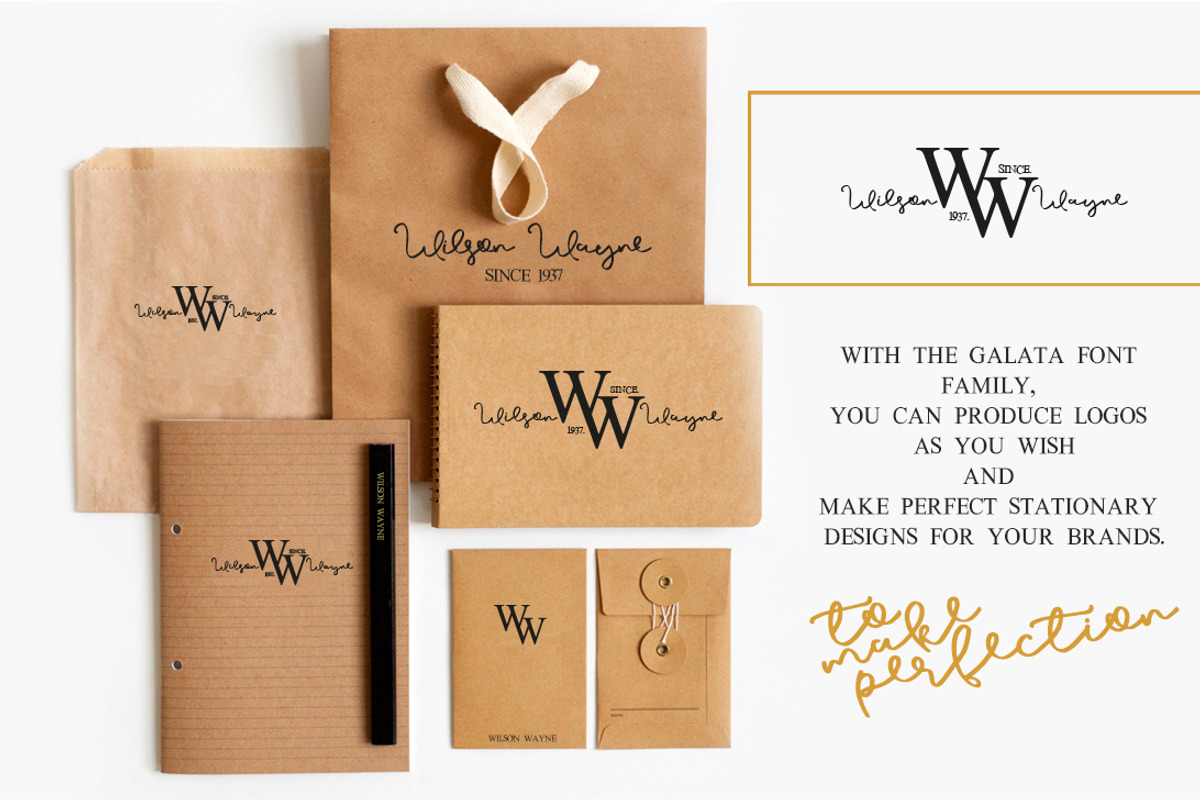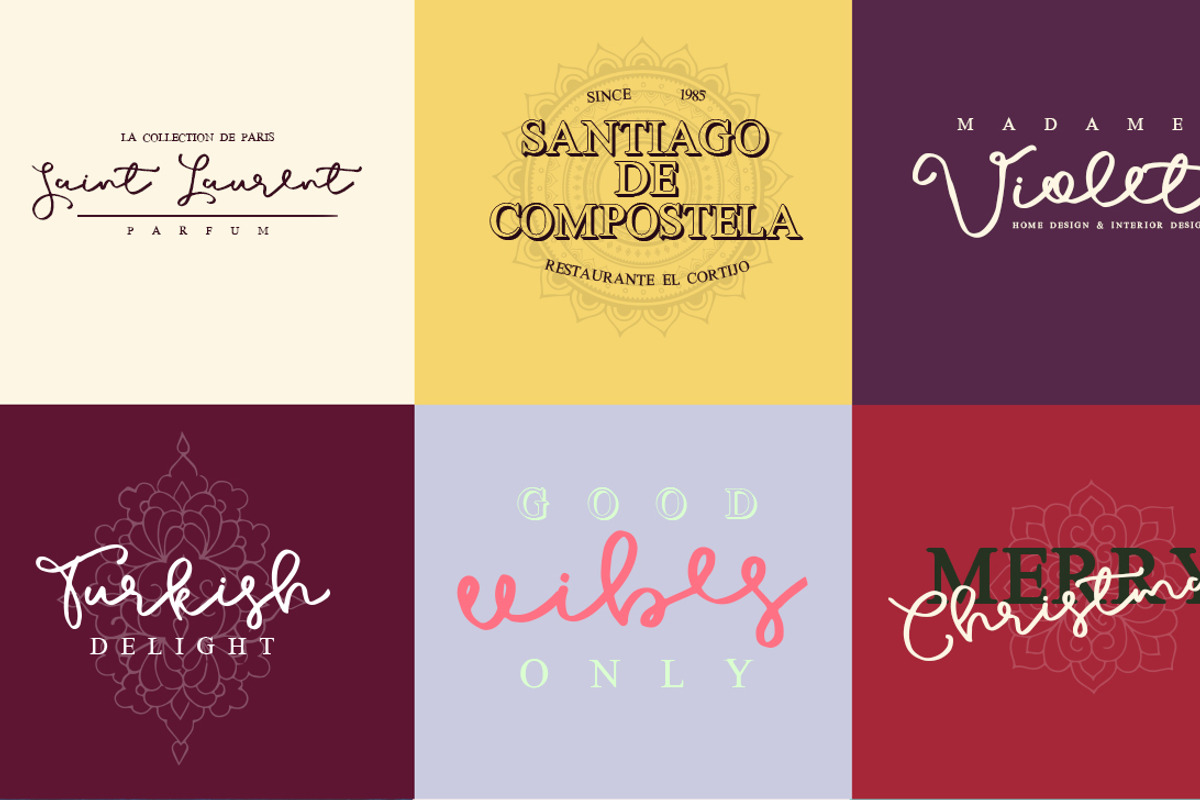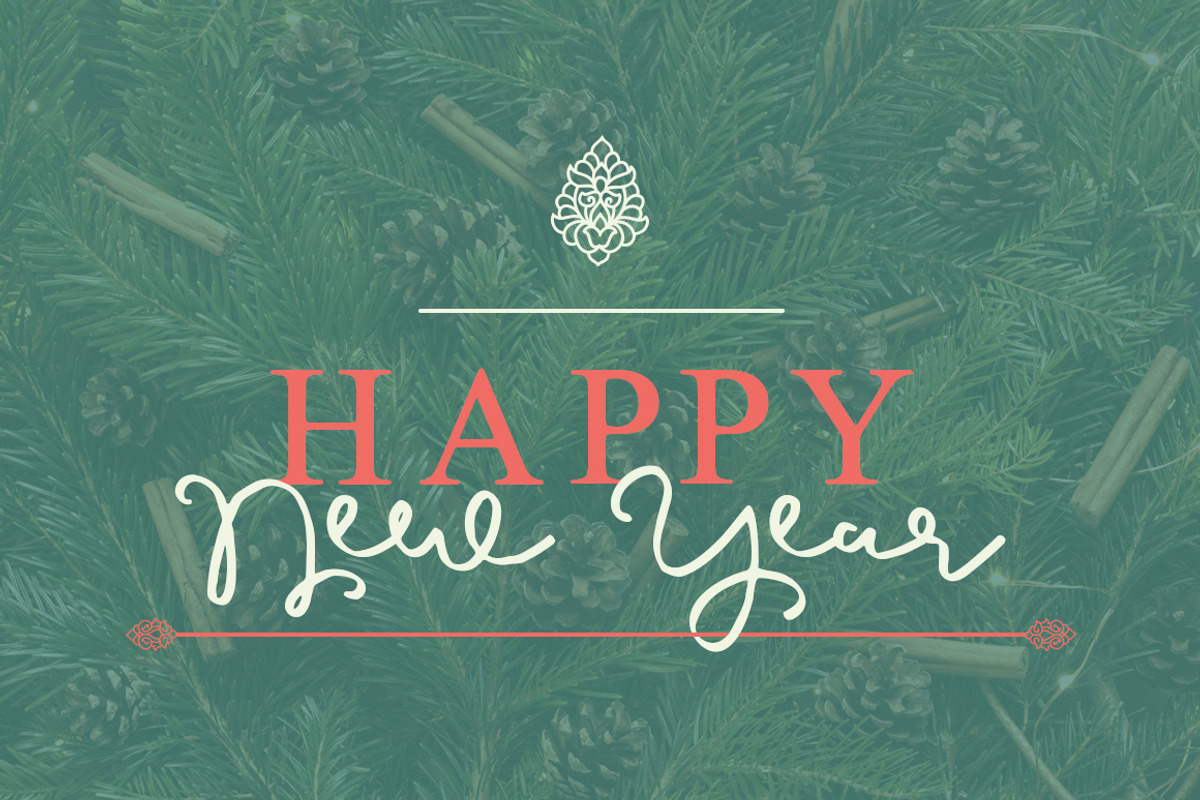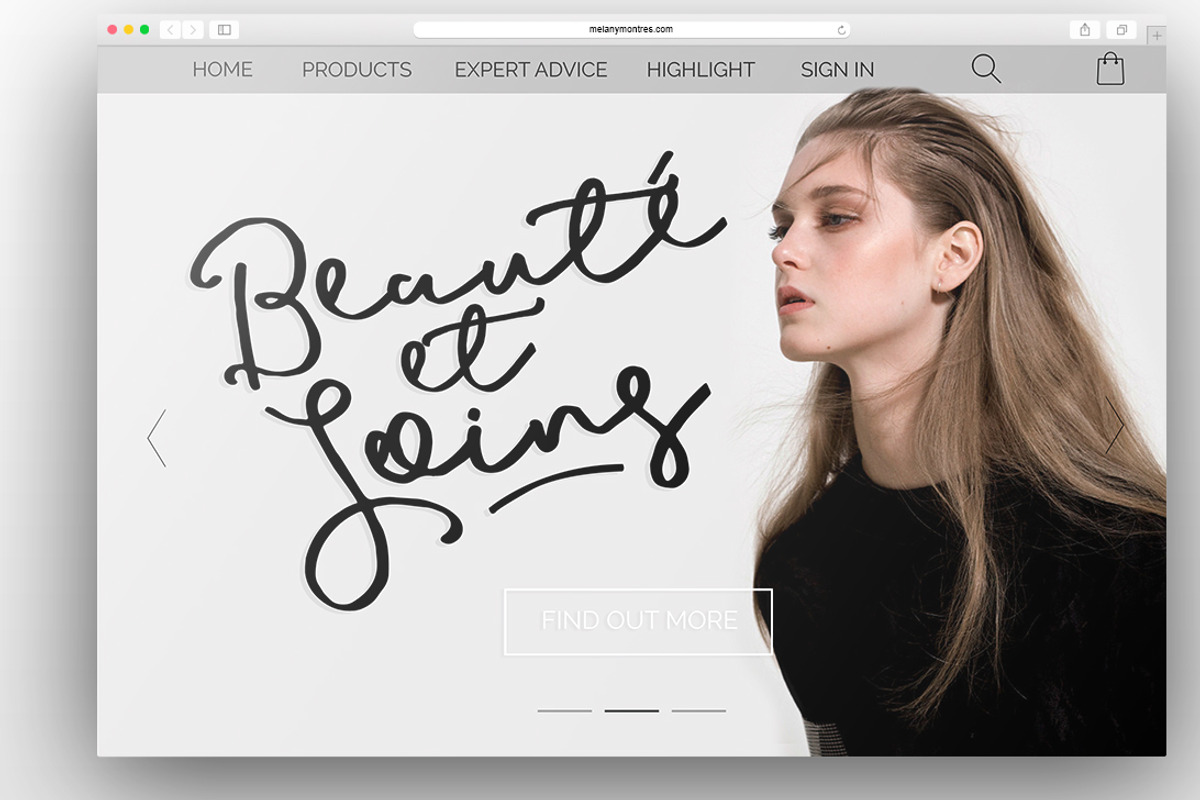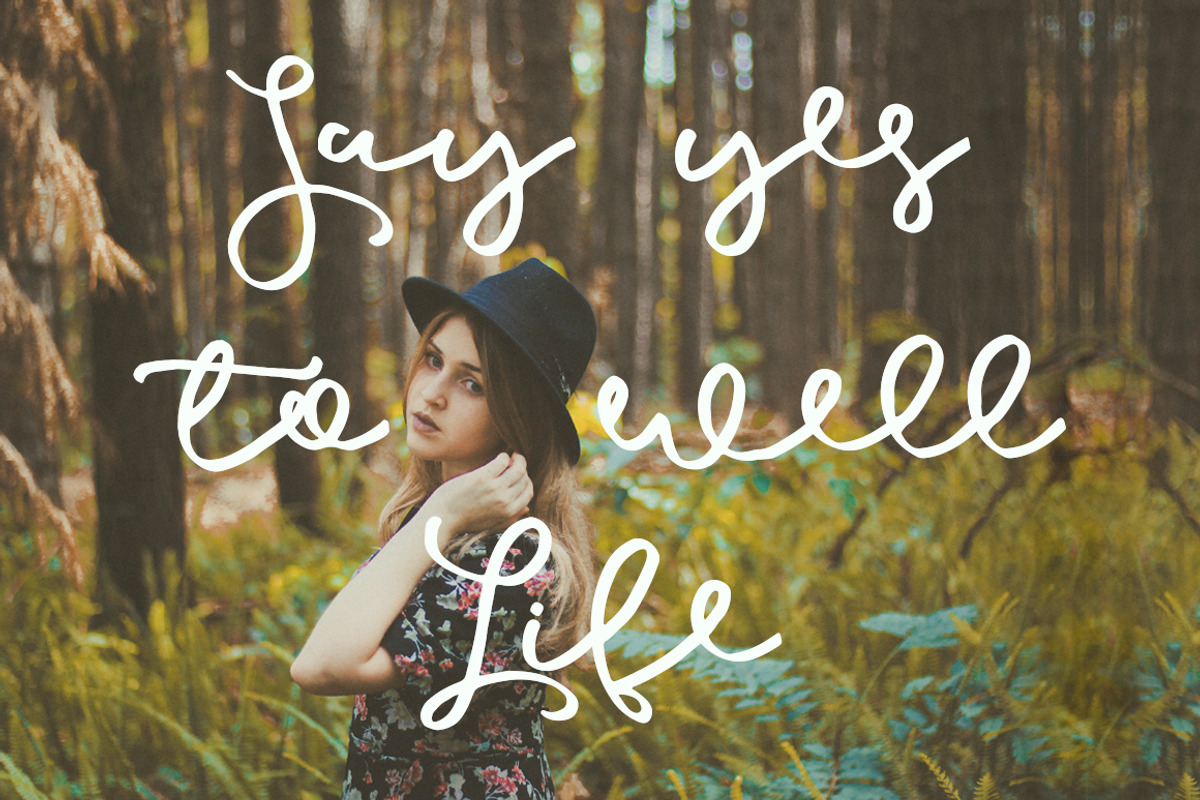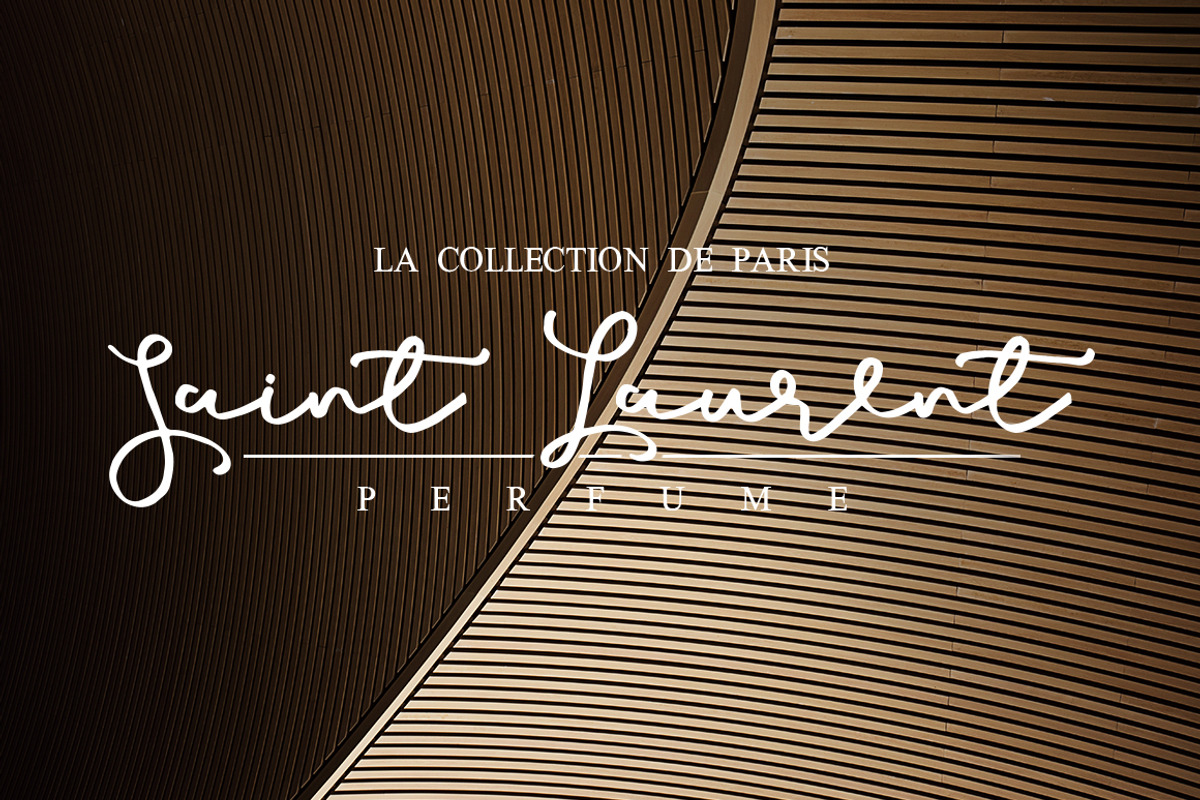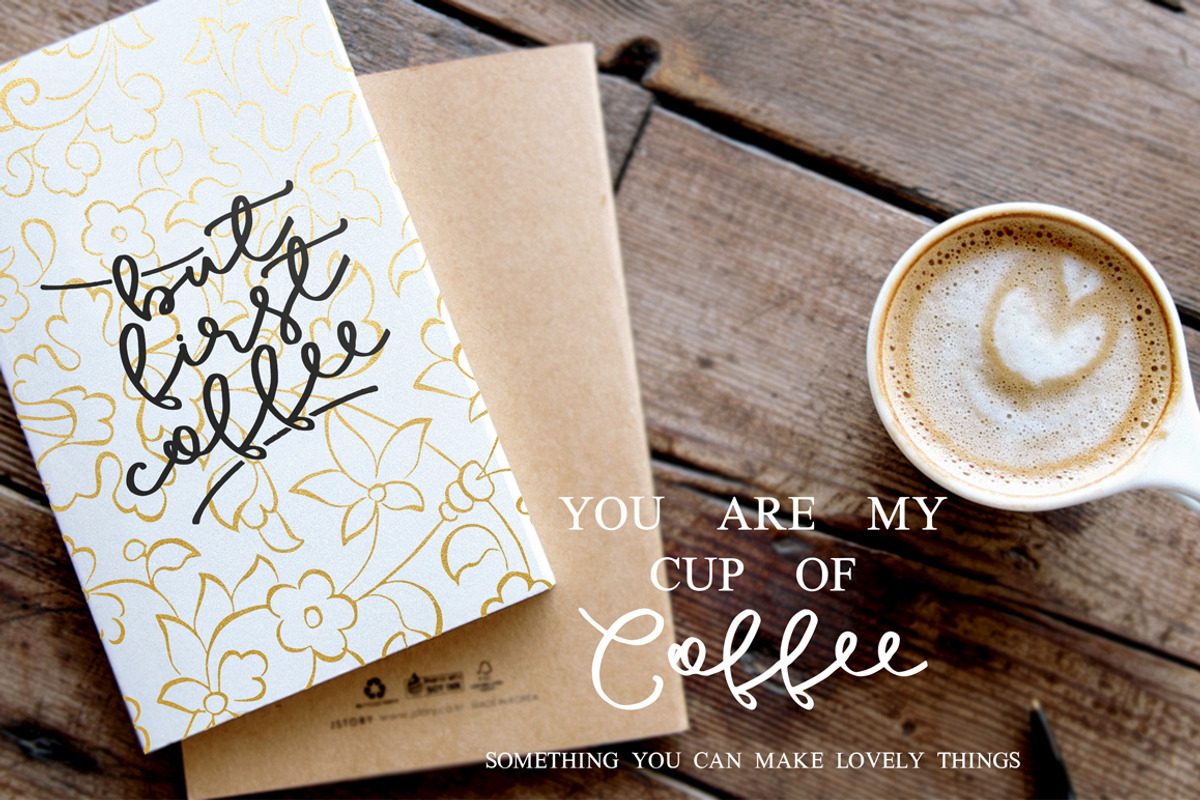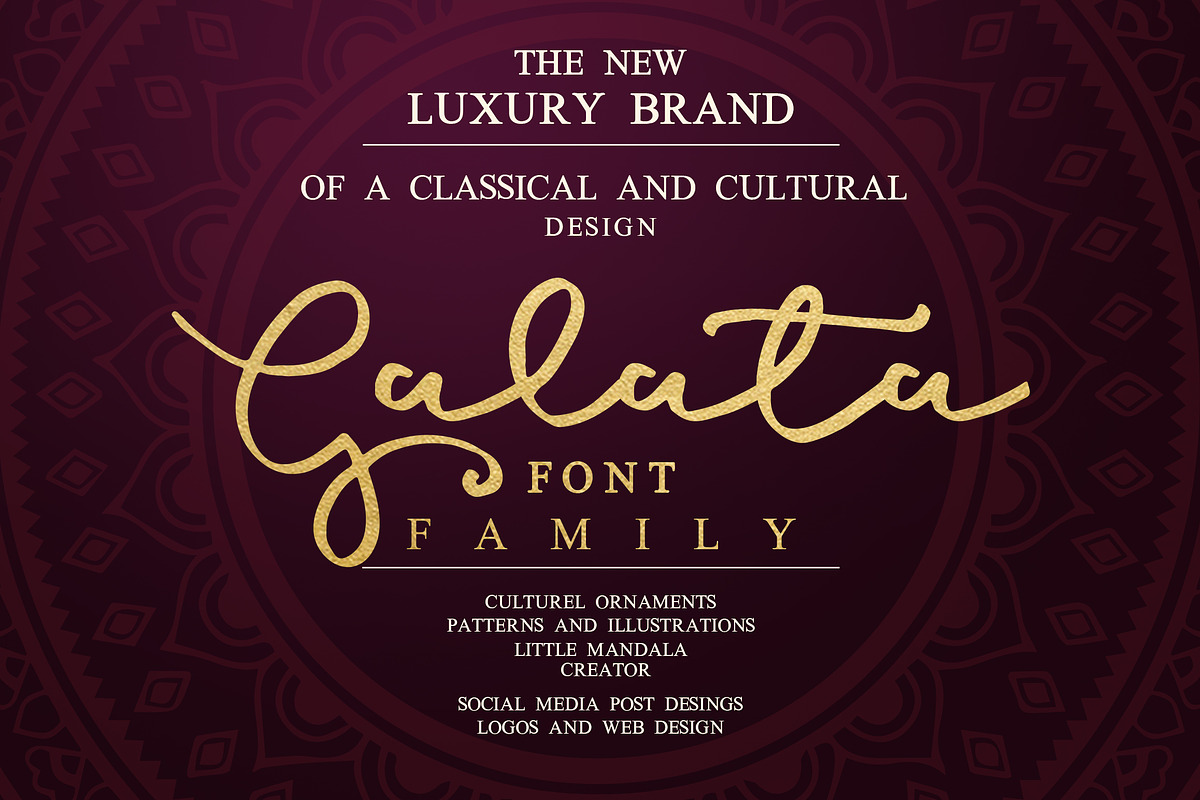
Galata Fonts & Extras
Galata Fonts & Extras by Yasir Ekinci is a font selected for branding, posters, packaging, typography.
- Galata Script Regular
- Galata Serif Regular
Why Galata Fonts & Extras is worth a look
Galata Fonts & Extras by Yasir Ekinci fits naturally into Branding, posters, packaging, typography.